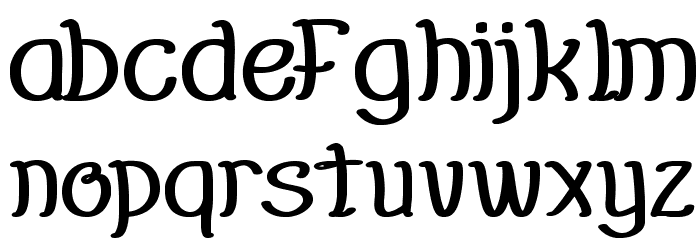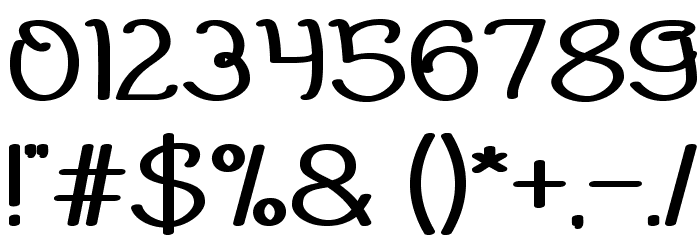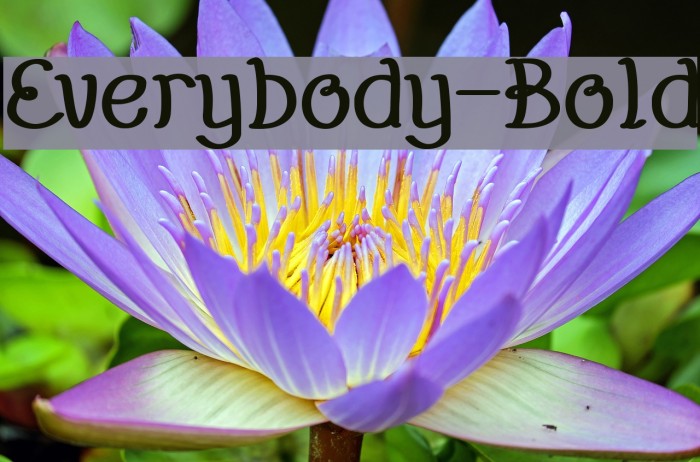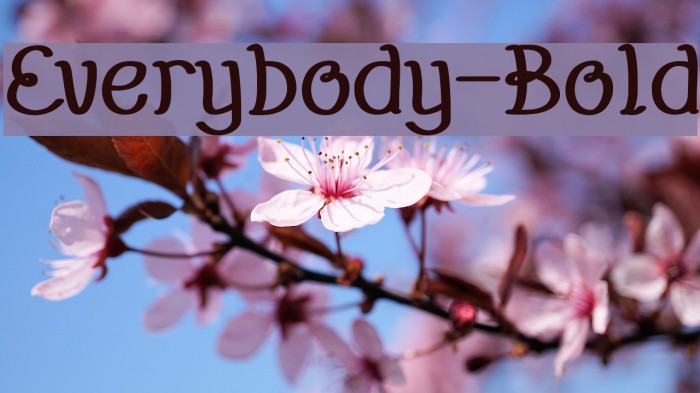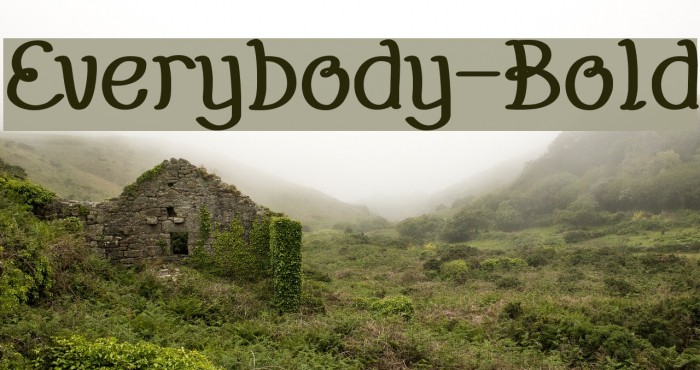
Everybody-Bold Font
This font features a playful and whimsical style with a bold and rounded appearance. The characters have a unique, hand-drawn quality, with slightly exaggerated curves and loops that give it a friendly and approachable feel. The uppercase and lowercase letters maintain a consistent weight, ensuring readability while adding a touch of fun. The numerals and special characters are equally expressive, making this font suitable for creative and informal designs. Its boldness ensures it stands out, making it ideal for attention-grabbing headlines or playful branding projects.
A playful, bold font with a hand-drawn, whimsical style.
- Proposed Projects: Ideal for children's books, playful branding, party invitations, and creative posters.
- Overall Style: Playful, Whimsical